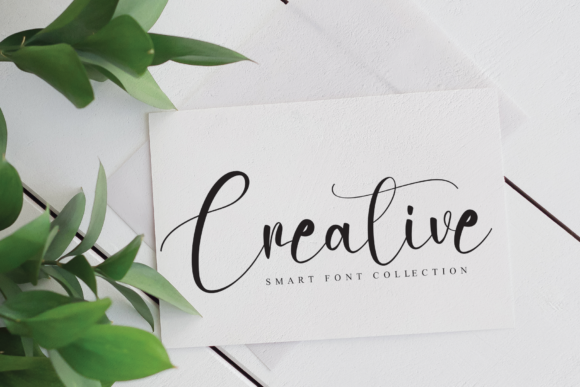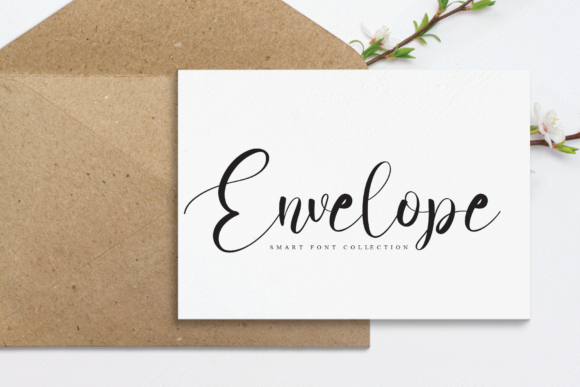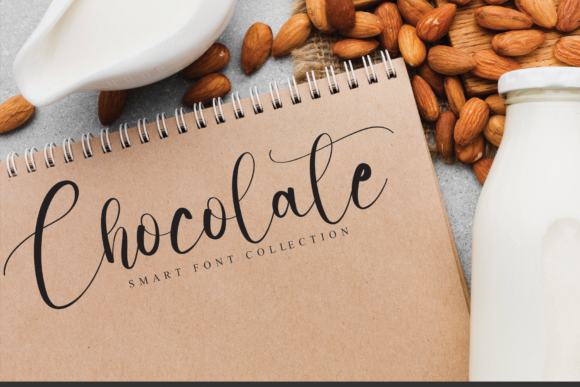
Ecstatic Font
About Ecstatic Font
Ecstatic is a beautiful light handwritten font with a unique feel and a stunning impact. It will add a luxury spark to any design project that you wish to create!